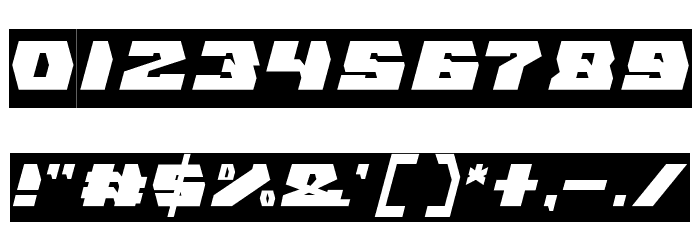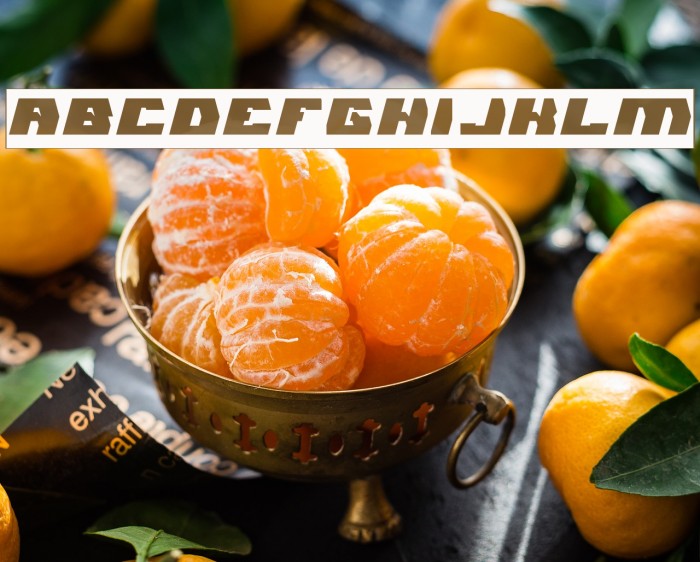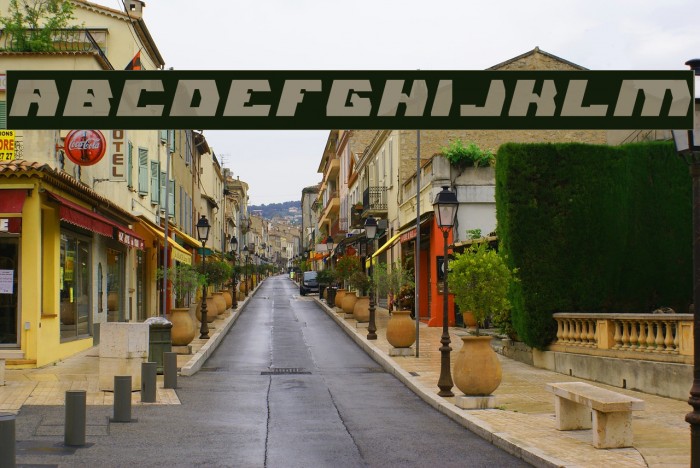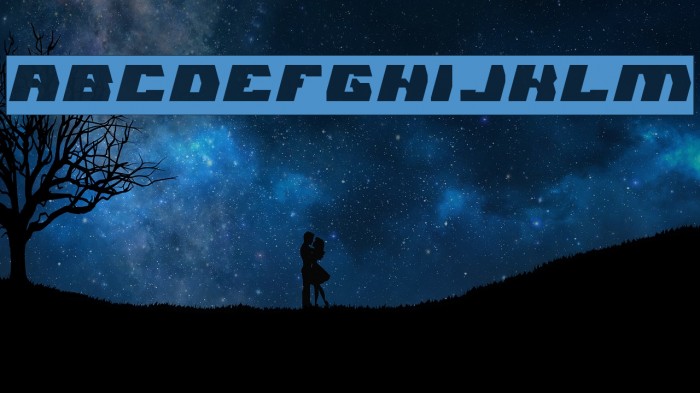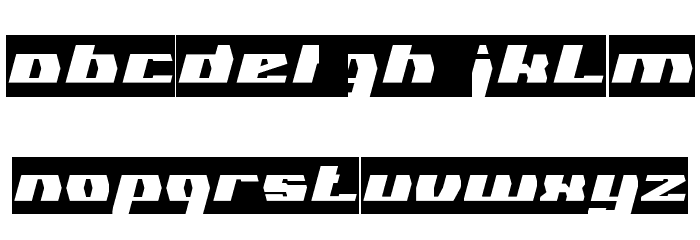
GLADIATOR SPORT-Inverse Font
GLADIATOR SPORT-Inverse Description
This bold and dynamic font features a strong, angular design with a sporty and aggressive aesthetic. Each character is crafted with sharp edges and a slightly italicized stance, giving it a sense of motion and energy. The uppercase and lowercase letters maintain a consistent style, with the lowercase being slightly more compact. Numbers and special characters follow the same bold and impactful design, making this font suitable for attention-grabbing headlines and logos. The overall style is modern and decorative, with a high contrast in stroke thickness that enhances its bold appearance.
| Proposed Projects | Perfect for sports branding, dynamic posters, video game titles, and any project needing a bold, energetic typeface. |